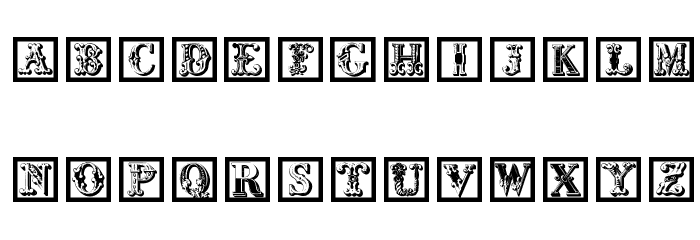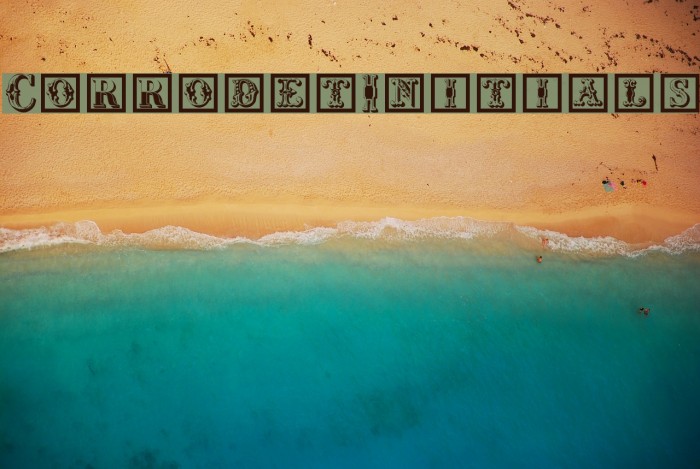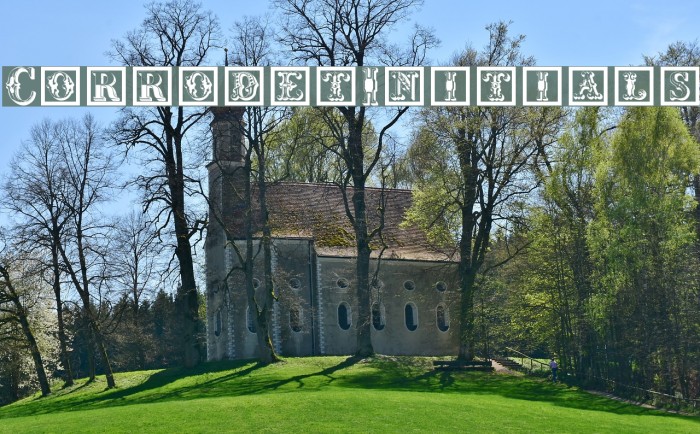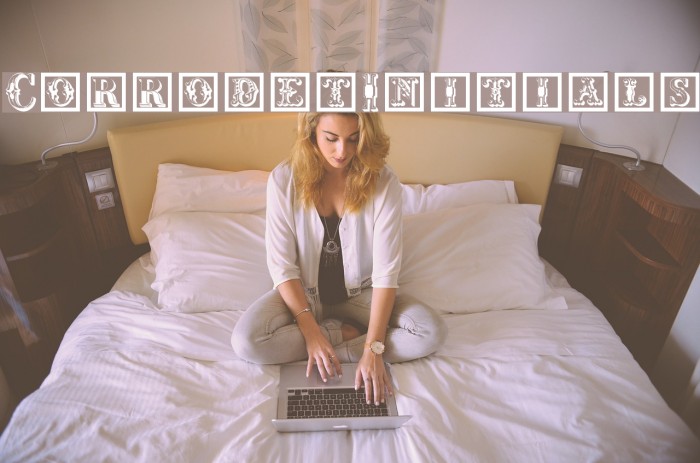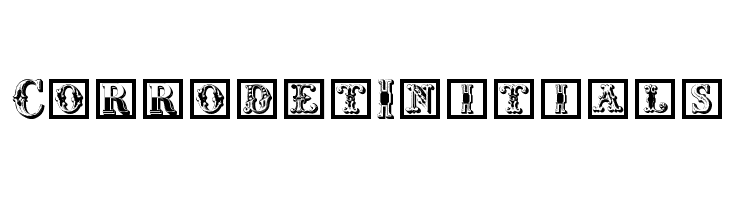
CorrodetInitials Font
This font features an ornate and decorative style, characterized by intricate detailing and embellishments within each letter. The uppercase letters are bold and highly stylized, with a vintage flair reminiscent of Victorian-era design. Each character is unique, with flourishes and patterns that add a sense of elegance and complexity. The font is designed to capture attention and convey a sense of sophistication and artistry, making it ideal for projects that require a touch of historical or classical aesthetics.
An ornate, decorative font with intricate Victorian-style detailing.
- Proposed Projects: Ideal for vintage-themed posters, invitations, branding for luxury products, or any project requiring a historical or artistic touch.
- Overall Style: Vintage